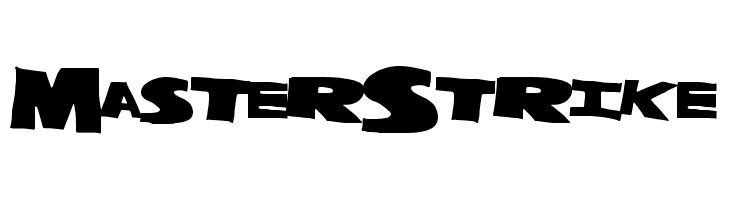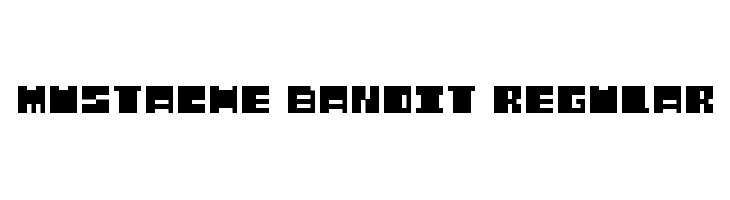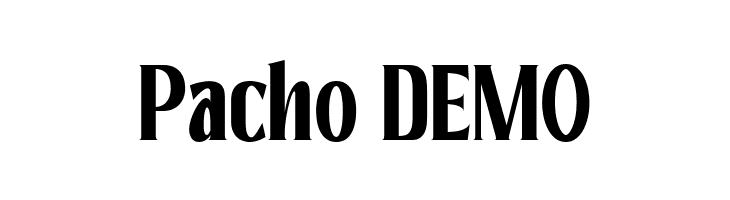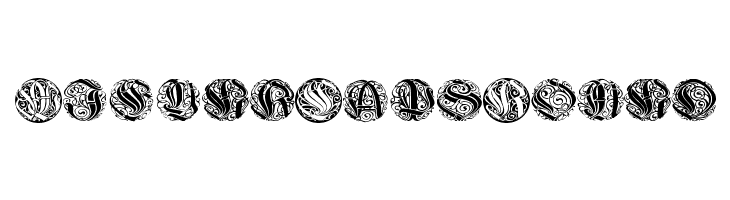
A bold and dynamic font with a strong presence and unique character.
A collection of retro space-themed icons and illustrations.
A decorative font with intricate patterns and bold, artistic letterforms.
A bold, geometric font with a futuristic, segmented design.
A bold Art Deco font with geometric shapes and strong lines, exuding vintage elegance.
A bold, dynamic font with thick strokes and sharp angles, perfect for impactful designs.
A modern, oblique sans-serif font with clean lines and a dynamic style.
A bold, futuristic font with geometric and three-dimensional elements.